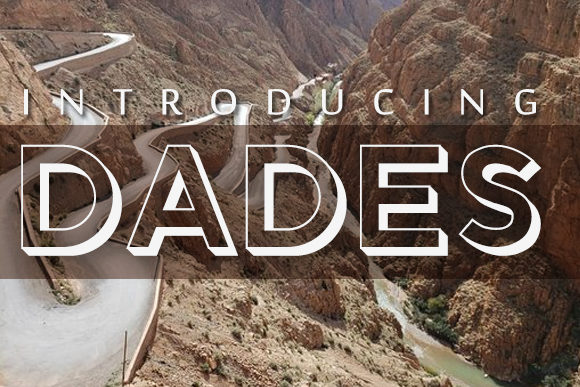
Introducing Dades, the display font that will unleash your creativity and leave a lasting impression. With its captivating curves and striking presence, Dades will instantly elevate your designs to new heights.
Picture your words dancing across the page, each letter imbued with a sense of power and confidence. Dades is designed to turn your ideas into visual masterpieces, adding an unforgettable touch to everything you create.
From captivating headlines to stunning posters, Dades is the perfect choice for making a statement. Its bold strokes command attention and leave an imprint that lingers in the minds of your audience.
Indulge in its versatility and explore the endless possibilities Dades offers. Whether you're a seasoned designer or just starting your creative journey, this font will become your trusted companion, elevating each project with its undeniable charm.
Experience the power of Dades today and prepare to witness your creativity soar. Every download is an investment in the future of your designs, empowering you to create works of art that captivate and inspire.
Don't miss out on this opportunity to add Dades to your font collection and unlock a world of creative possibilities. Embrace the boldness, embrace the beauty, and let your words dance with the rhythm of Dades.